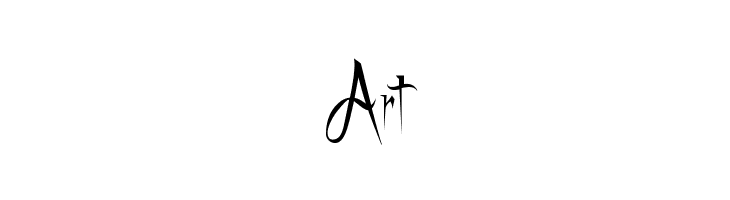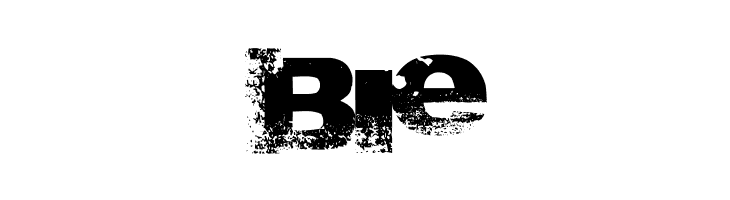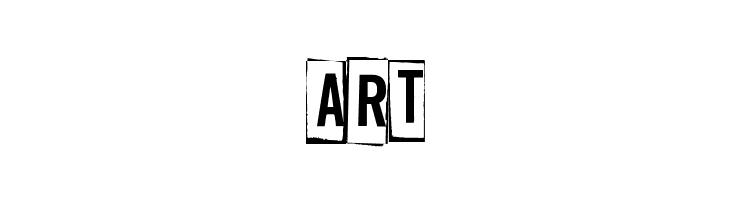
A playful, handwritten font with smooth curves and a lively style.
A playful, cursive script font with dynamic, flowing letterforms.
A flowing, cursive font with a handwritten, elegant style.
A flowing, cursive script font with a natural handwritten style.
A playful, sketchy font with a hand-drawn, textured appearance.
A bold, grunge-style font with a distressed, textured appearance.
A dynamic, cursive script font with a bold, handwritten style.
A bold, distressed font with a vintage, grunge aesthetic.
Bold, distressed font with a boxed, cut-out style.
An ornate and decorative font with intricate, flowing lines and dramatic flair.